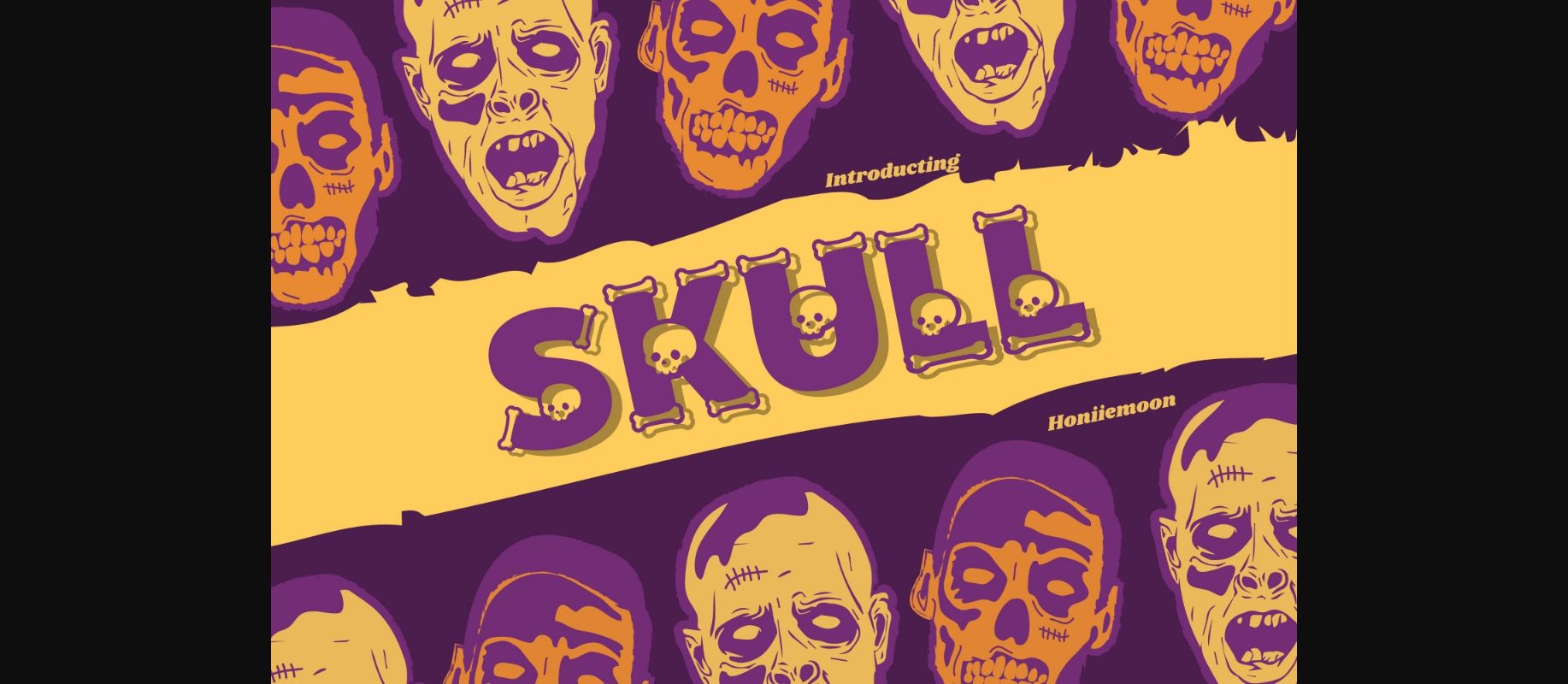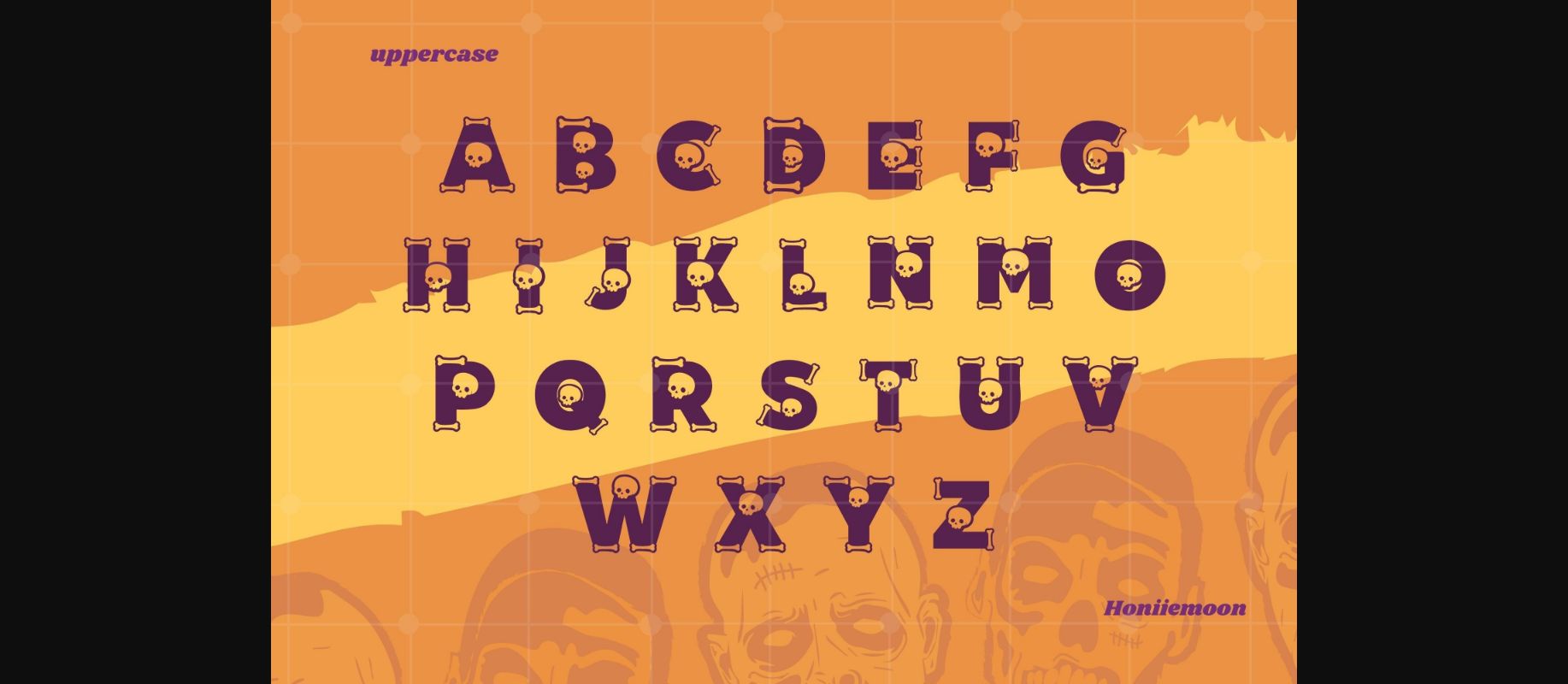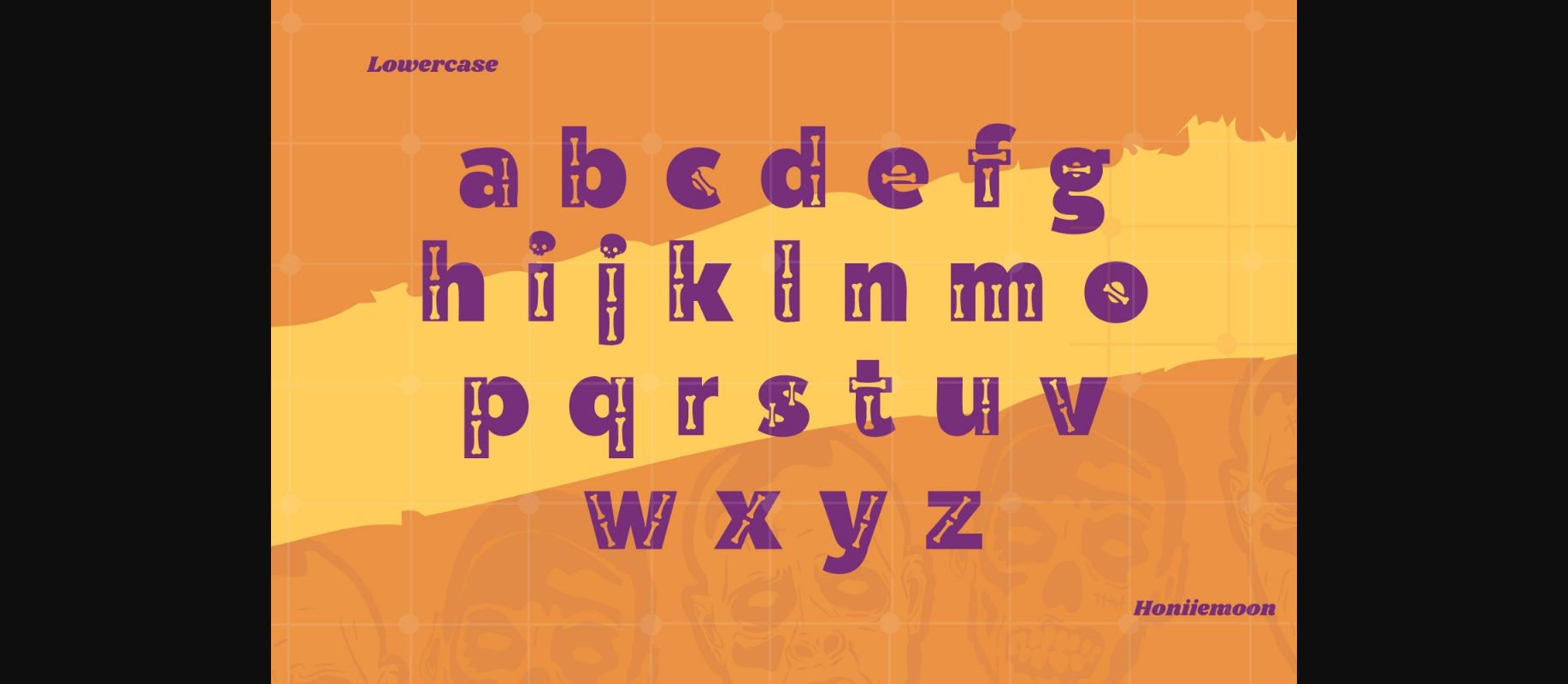
About Skull Font
Skull is a cool and fun decorative font. It looks both cute and jolly and it will enhance each of your Halloween designs. The only limit is your imagination. Add this creative typeface to each of your creative ideas and notice how it makes them come alive!